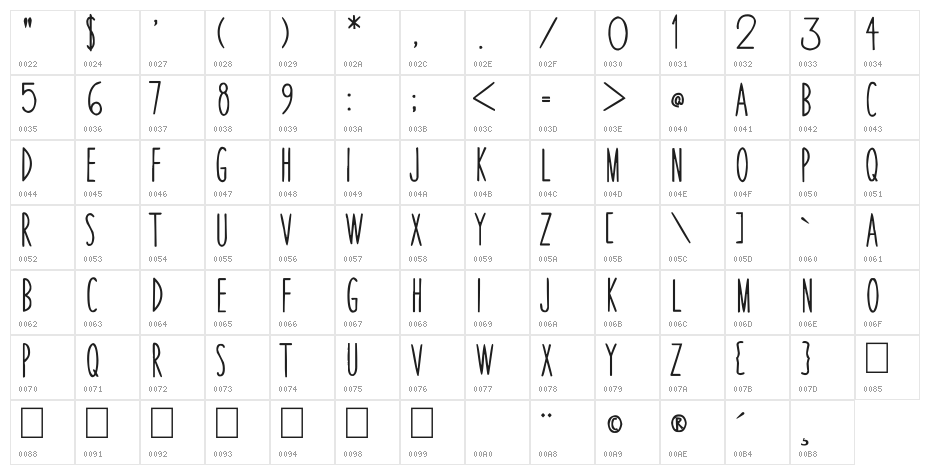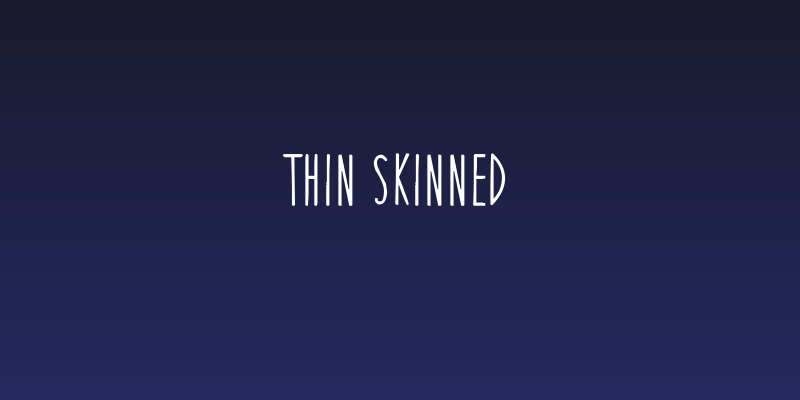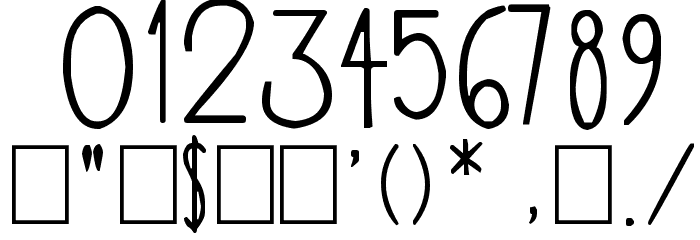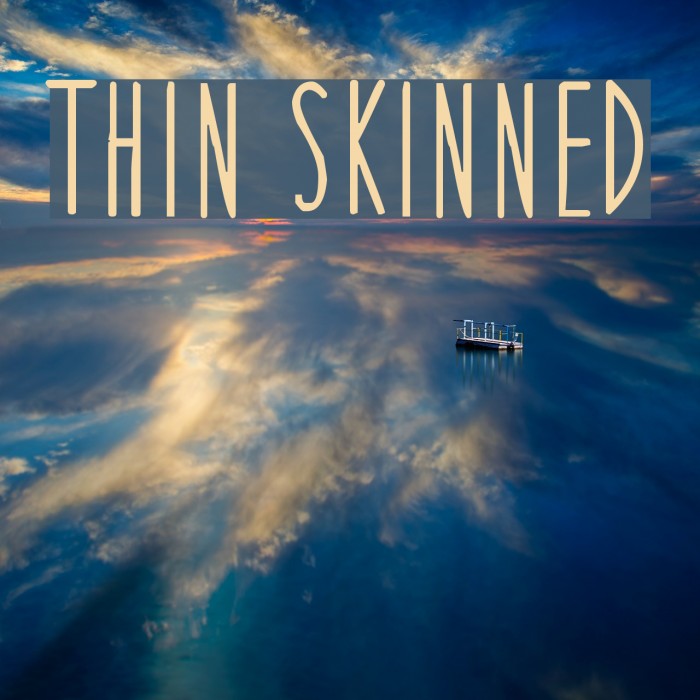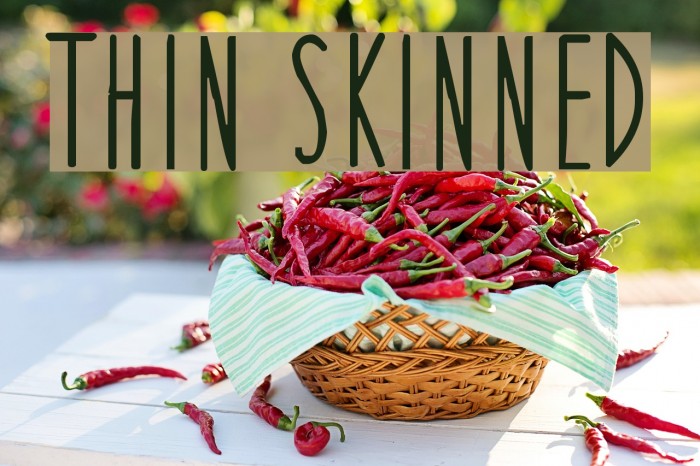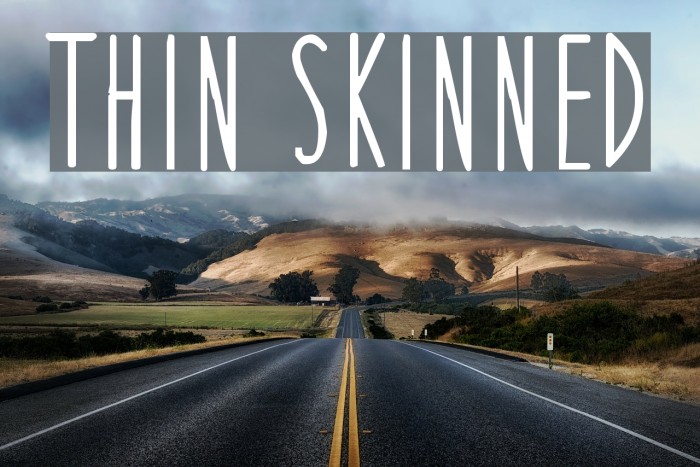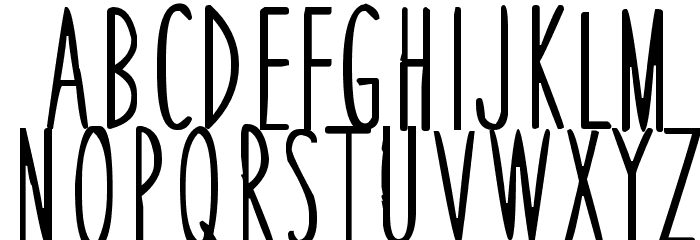
Thin Skinned Font
Thin Skinned Description
This font features tall, narrow characters with a distinctly elongated appearance, giving it a sleek and modern feel. The strokes are consistent in width, providing a uniform look across all characters. The uppercase and lowercase letters maintain a cohesive style, with a slight variation in height that adds visual interest. The numerals are designed to complement the alphabet, sharing the same slender and elongated form. Special characters are included, maintaining the same stylistic elements as the letters and numbers. This font's overall aesthetic is clean and contemporary, making it suitable for a variety of design applications.
| Proposed Projects | Ideal for fashion magazines, modern branding, and minimalist design projects. |